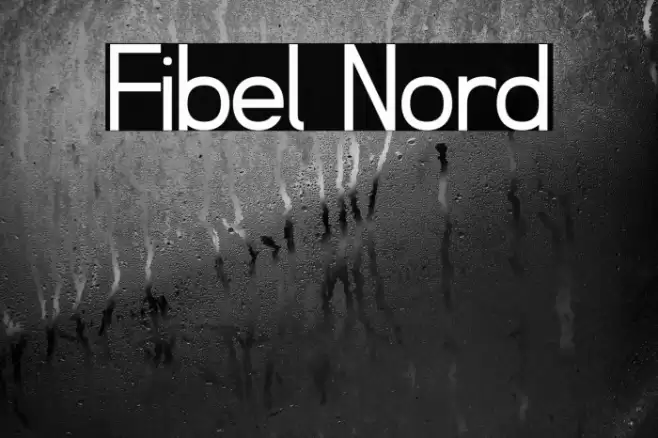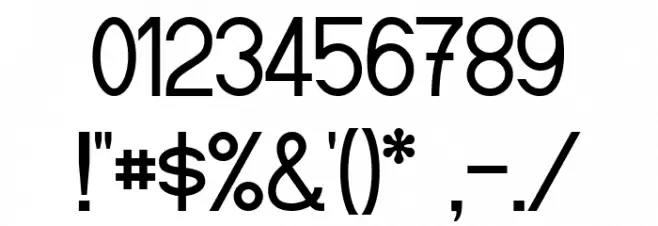
Fibel Nord Font
Fibel Nord Description
This font features a clean and modern sans-serif design, characterized by its geometric shapes and uniform stroke width. The uppercase letters are bold and assertive, while the lowercase letters maintain a consistent style with slightly rounded edges that add a touch of softness. The numerals are clear and legible, making them suitable for various applications. Special characters are well-defined, ensuring versatility in usage. The overall appearance is sleek and professional, making it ideal for contemporary design projects.
A modern, geometric sans-serif font with uniform strokes and a sleek appearance from Uncategorized fonts.
- Proposed Projects: Ideal for branding, advertising, web design, and editorial layouts where a modern and clean look is desired.